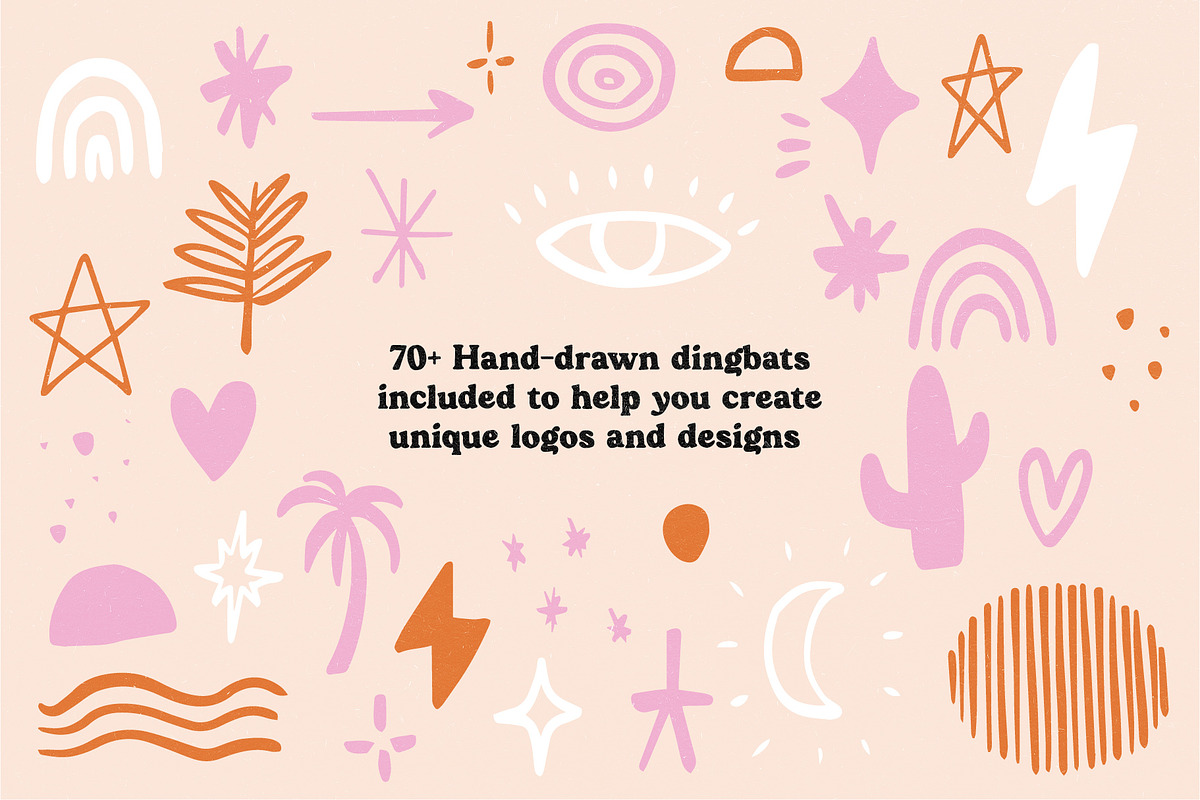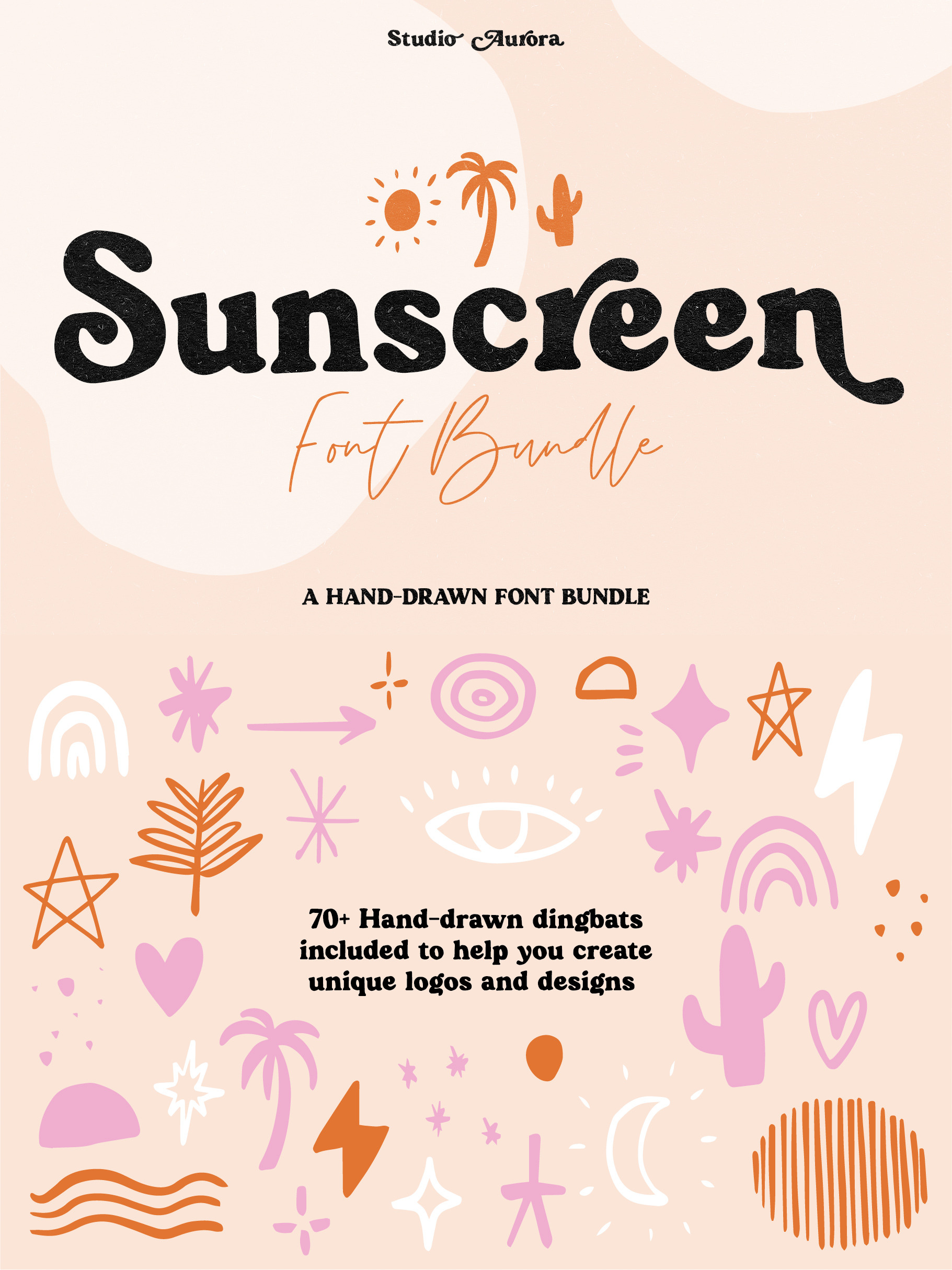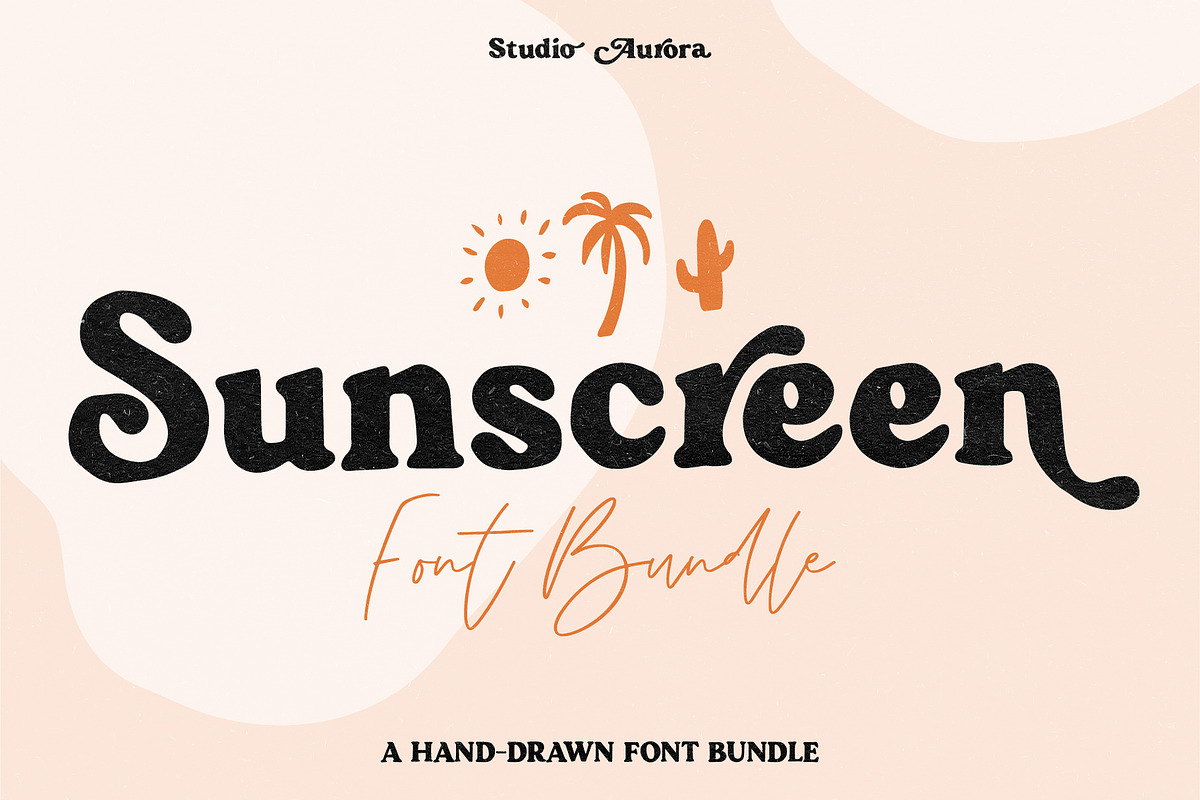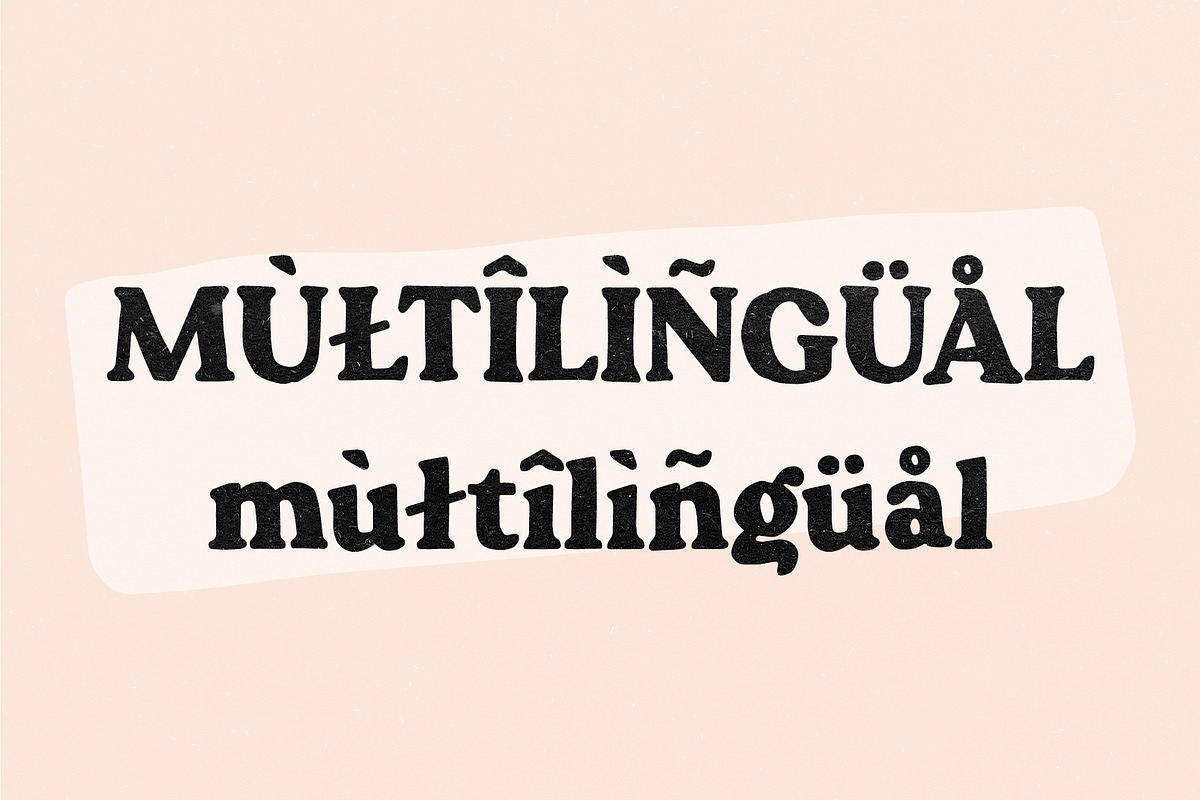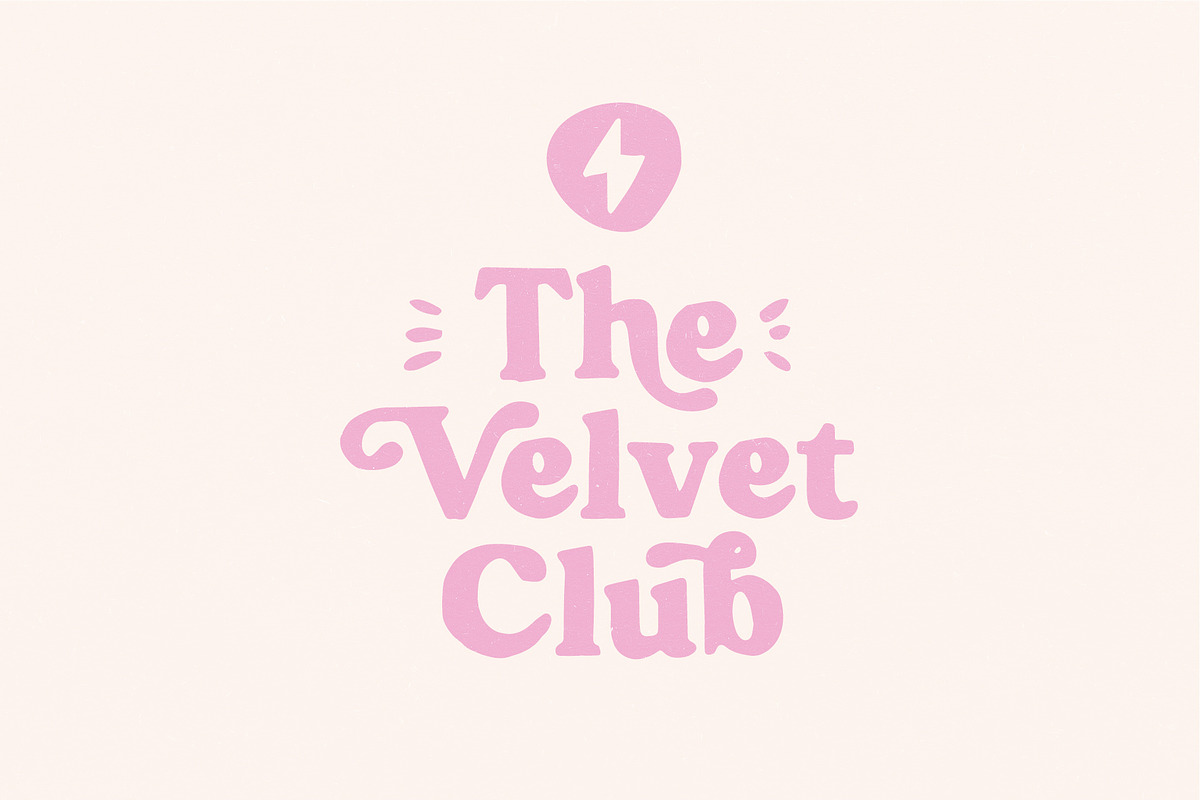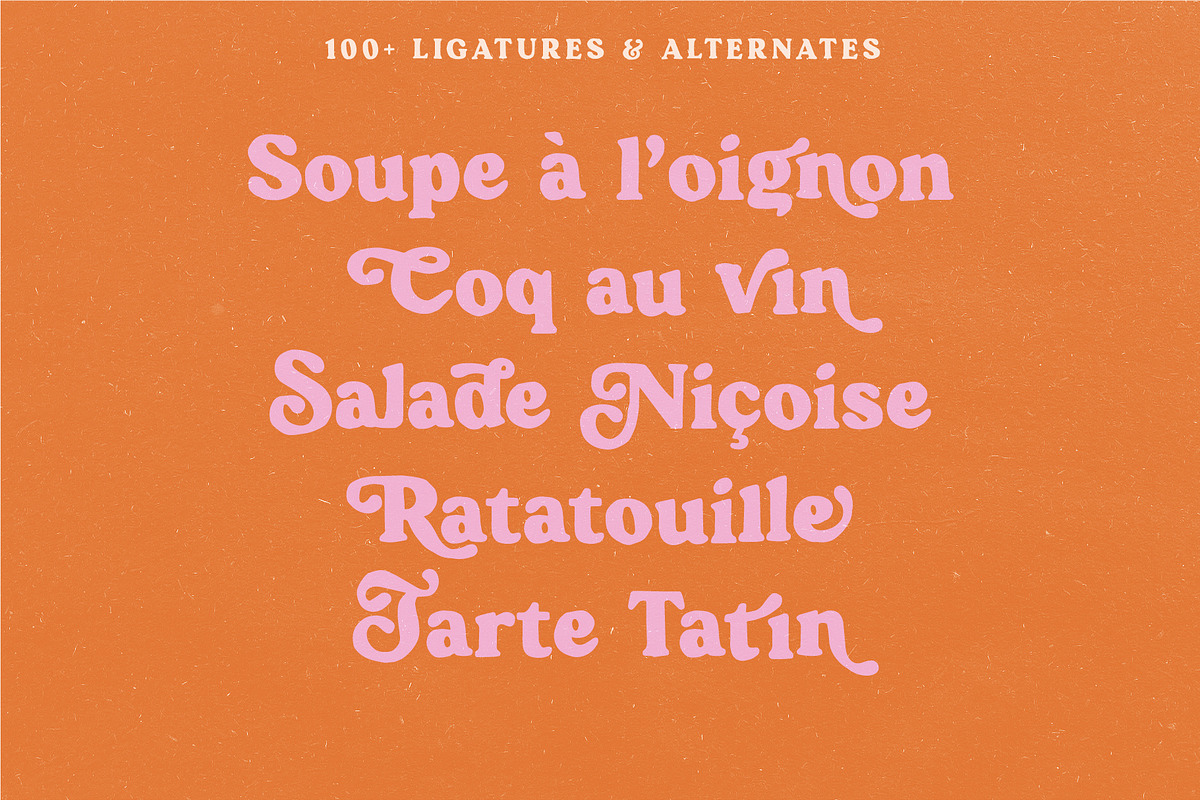
Sunscreen Hand Drawn Serif Font Duo
Introducing our new typeface, Sunscreen - a fun and playful, hand-drawn serif and script bundle.
It has a crafted quality perfect for adding a natural, rustic quality to your designs or logos. It comes packed full of alternates and ligatures to help add variety.
As well as the hand-drawn serif and script font there is also a dingbat font included. This comes with over 70 hand-drawn elements that can be used in to create unique typographic designs and logos or for completely separate designs.
Sunscreen font works best as a display font, recommended in the following types of work; magazines (titles and layouts), logos and branding, invitations, quotes, blog headers, posters, and advertising.